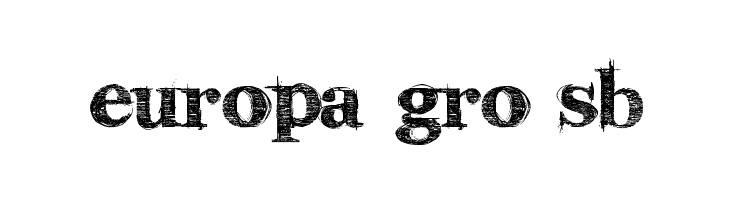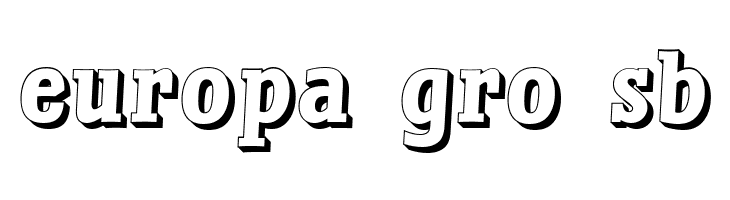
( Fonts by Kirk Shelton - www.kirkshelton.com )
A bold, 3D vintage-style font with an engraved, shadowed appearance.
( Fonts by Rick Mueller )
A bold, vintage serif font with high contrast and dramatic serifs.
A bold, distressed font with a vintage, rugged texture.
( Fonts by Jay Hilgert - www.bittbox.com )
A decorative font with intricate, ornamental details and a vintage-modern style.
( Fonts by Jonathan Paquette - www.jonathanpaquette.com )
A bold, textured serif font with a vintage, grunge aesthetic.
( Fonts by Jonathan Paquette - www.jonathanpaquette.com )
A bold, distressed font with a rugged, vintage aesthetic.
( Fonts by Cumberland Fontworks - http://www222.pair.com/sjohn/fonts.htm - S. John Ross )
A wide-stroke, textured font with a vintage, hand-drawn feel.
A bold, three-dimensional serif font with a vintage, embossed style.